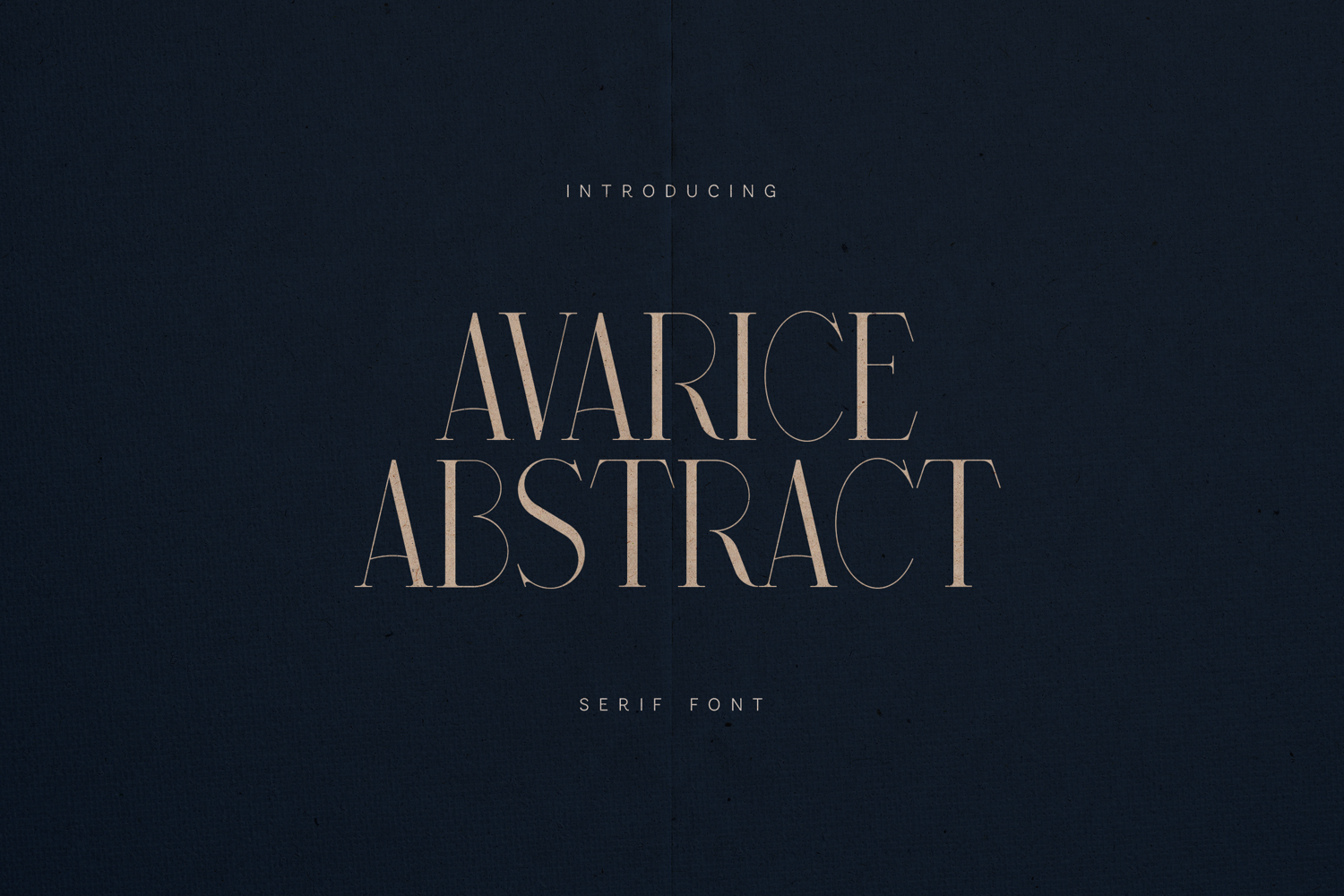
Avarice Abstract Elegant Modern Serif Font
Avarice Abstract is a refined high-contrast serif font designed for luxury branding, sophisticated editorials, and elevated visual identities.
With its sculpted curves, delicate transitions, and dramatic contrast, this typeface balances minimal elegance with artistic tension. The uppercase letters bring bold presence, while the lowercase forms add refinement and rhythm — making it ideal for statement typography.
• Luxury branding
• Fashion campaigns
• Editorial layouts
• Logo design
• Beauty packaging
• Wedding stationery
• Modern posters
• High-end social media graphics
Avarice Abstract performs beautifully in both minimal layouts and dramatic compositions. It is built for designers who want elegance with edge and timeless sophistication.